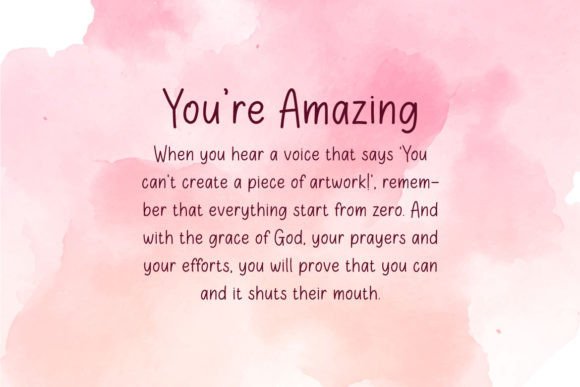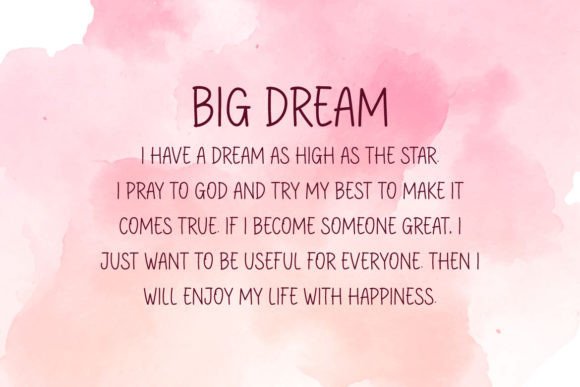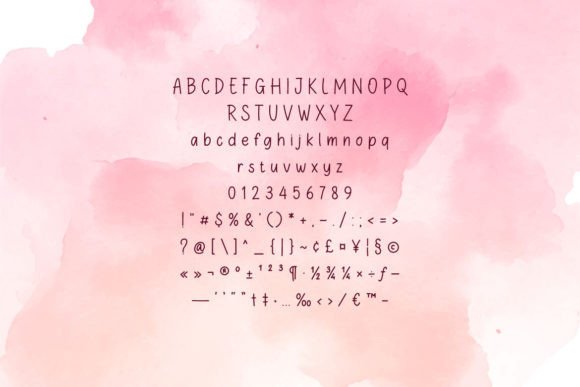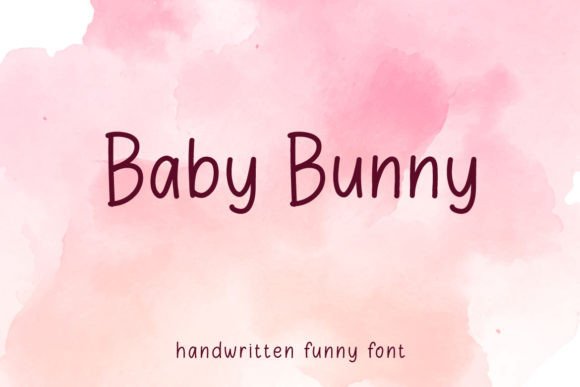
Baby Bunny Font: The Ultimate Addition to Your Whimsical Designs
Are you a designer or crafter looking for a typeface that can add a dash of humor and charm to your creations? Look no further than the Baby Bunny font! This whimsical and comically handwritten typeface is perfect for adding a playful and adorable touch to your designs, making it an ideal choice for comics, greeting cards, children’s books, and more.
The Characteristics of Baby Bunny Font
Baby Bunny font is a unique and eye-catching typeface that boasts a range of characteristics that make it perfect for designers and crafters. Some of its key features include:
- Whimsical and playful design: The Baby Bunny font features a comically handwritten design that is sure to bring a smile to your face. Its playful and carefree aesthetic makes it perfect for designs that require a lighthearted and humorous touch.
- Adorable and charming: The font’s adorable and charming design makes it perfect for designs that require a touch of sweetness and innocence. Whether you’re creating a children’s book or a greeting card, the Baby Bunny font is sure to delight your audience.
- Highly legible: Despite its playful design, the Baby Bunny font is highly legible, making it easy to read and understand. This makes it perfect for designs that require a clear and concise message.
Uses for Baby Bunny Font
The Baby Bunny font is a versatile typeface that can be used in a range of designs, including:
- Comics and graphic novels: The Baby Bunny font is perfect for adding a touch of humor and whimsy to your comics and graphic novels. Its playful design makes it ideal for dialogue and captions.
- Greeting cards and invitations: The font’s adorable and charming design makes it perfect for greeting cards and invitations. Whether you’re creating a birthday card or a wedding invitation, the Baby Bunny font is sure to add a touch of sweetness and charm.
- Children’s books and educational materials: The Baby Bunny font is a great choice for children’s books and educational materials. Its playful and engaging design makes it perfect for books, worksheets, and other educational resources.
- Social media graphics and posts: The font’s whimsical and playful design makes it perfect for social media graphics and posts. Whether you’re creating a Facebook post or an Instagram story, the Baby Bunny font is sure to add a touch of humor and charm.
Tips for Using Baby Bunny Font
To get the most out of the Baby Bunny font, here are a few tips to keep in mind:
- Use it sparingly: While the Baby Bunny font is perfect for adding a touch of humor and charm to your designs, it’s best to use it sparingly. Overusing the font can make your designs look cluttered and overwhelming.
- Pair it with other fonts: The Baby Bunny font pairs well with other fonts, such as sans-serif and serif fonts. Experiment with different font combinations to find the perfect look for your design.
- Experiment with different colors and textures: The Baby Bunny font looks great in a range of colors and textures. Experiment with different colors and textures to find the perfect look for your design.
In conclusion, the Baby Bunny font is a whimsical and comically handwritten typeface that adds a playful and adorable touch to your designs. Perfect for designers and crafters, this font is ideal for comics, greeting cards, children’s books, and more. With its highly legible design and versatile uses, the Baby Bunny font is a great addition to any design project. So why not give it a try and see how it can add a dash of humor and charm to your creations?
- Is the Baby Bunny font suitable for body text?: While the Baby Bunny font is highly legible, it’s best suited for headlines and short blocks of text. For body text, a more traditional font may be more suitable.